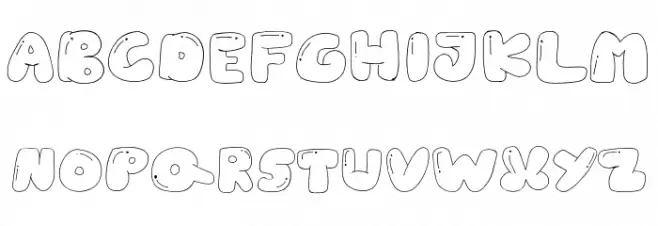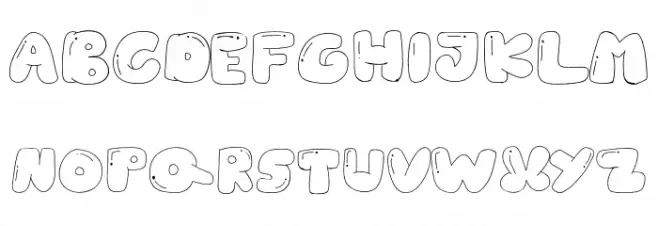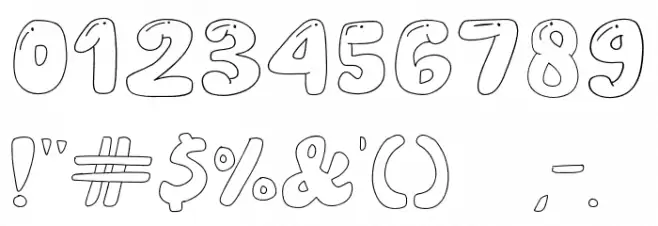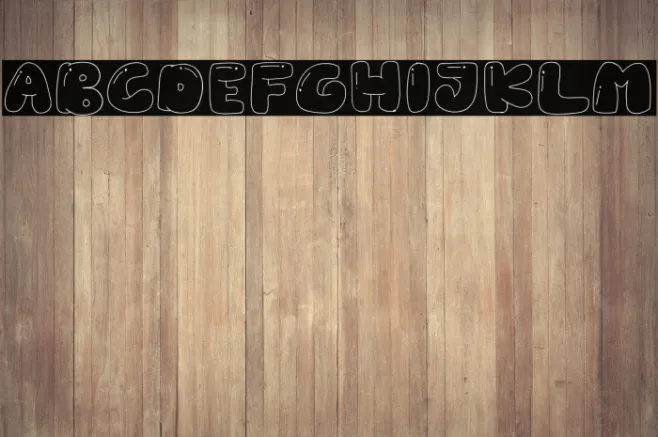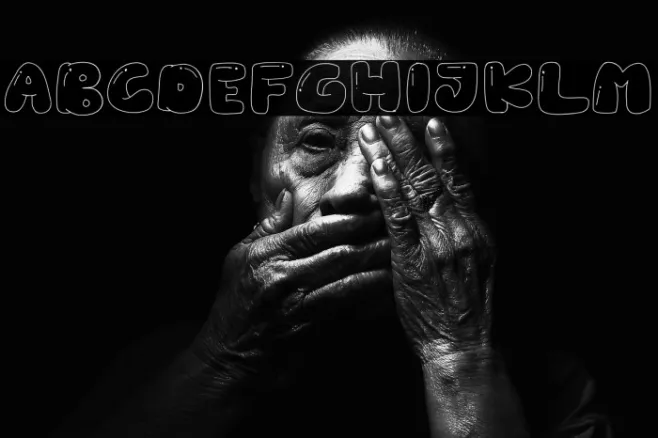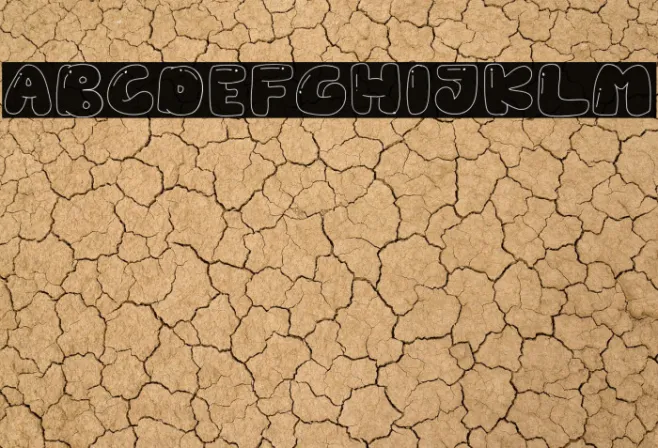
Playful Swollen Font
Playful Swollen Description
A playful, rounded font with a swollen appearance, featuring thick, bubbly strokes and a whimsical style.
Playful and bubbly font with a swollen look.
- Font: Playful Swollen
- Proposed Projects: Children's books, playful branding, party invitations.
- Overall Style: Playful